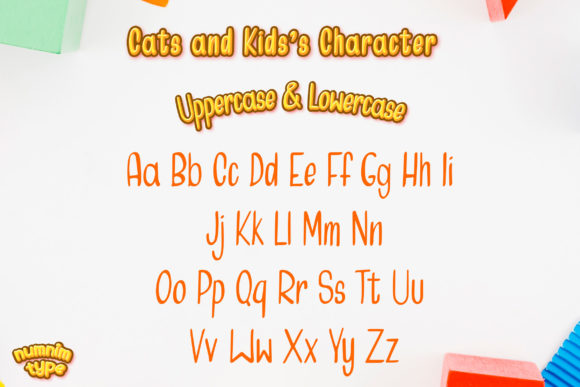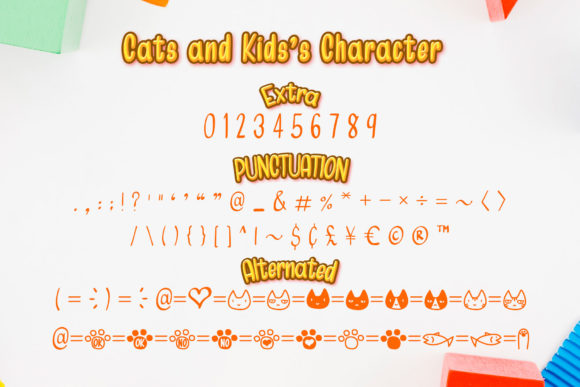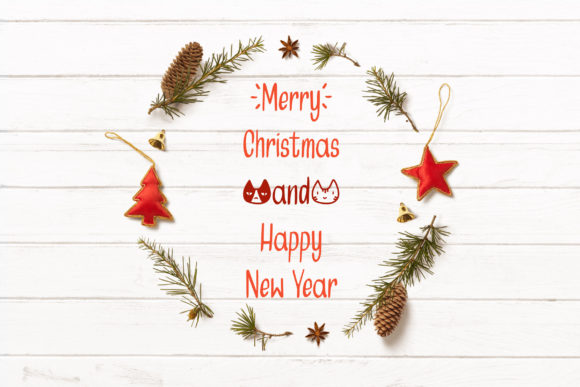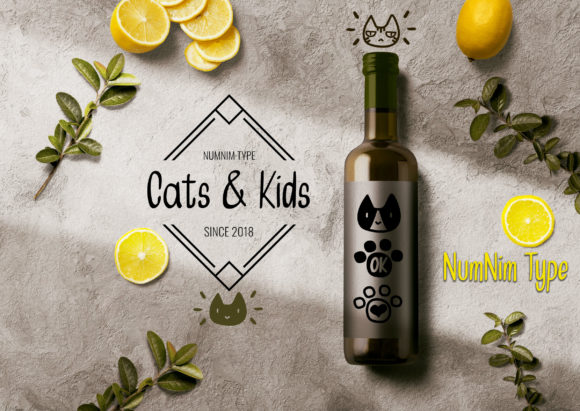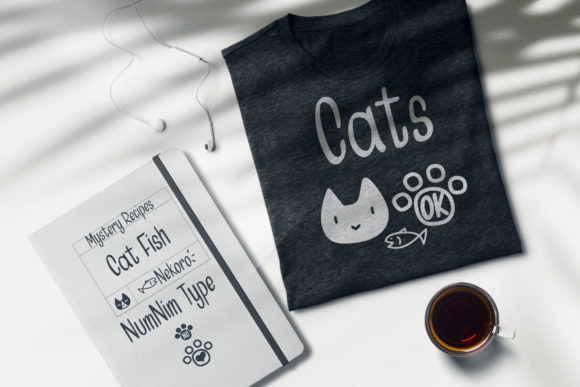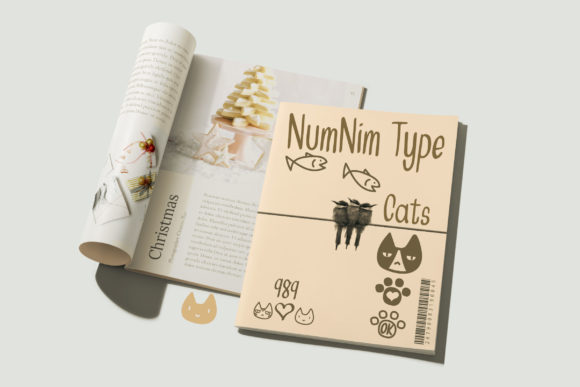
Whimsical Writings for the Young at Heart
Do you ever find yourself scribbling out ideas for your child’s birthday party invitations or holiday cards, only to be interrupted by a furry friend demanding attention? I know I do! Those moments of creative chaos often spark the most innovative ideas – and that’s exactly what happened when I discovered the Cats and Kids Font.
This delightful handwritten font is a perfect match for any project centered around children and whimsy. Whether you’re crafting a holiday letter or designing a children’s themed poster, the Cats and Kids Font adds a touch of playfulness and joy. Its delicate strokes and endearing style make it an instant favorite among designers looking to create something special for the little ones in their lives.
Cats and Kids Font Key Features
- Font Family: Cats and Kids Font is a custom-designed font family that includes multiple styles and weights.
- Character Count: The font family includes a wide range of characters, including uppercase and lowercase letters, numbers, and punctuation marks.
- Unique Characteristics: The font features whimsical illustrations of cats and kids, adding a playful touch to any design project.
Cats and Kids Font Review
As a designer, I was excited to dive into the “Cats and Kids Font” to see if it would live up to its cute and playful name. Overall, I’d say it’s a mixed bag, but let’s break it down.
- The font is indeed very cute and fun, making it perfect for kid-friendly projects or designs that need a playful touch.
- The font is highly customizable, with a wide range of weights and styles to choose from, making it easy to tailor the look to your needs.
- The font includes a variety of glyphs and characters, including some fun and creative additions like cat and kid-themed icons.
- The font can be a bit too playful for more serious or professional projects, which may not be the best fit for every designer.
- The font is not ideal for long blocks of text, as the whimsical design can become overwhelming and difficult to read.
- The font may not be the best choice for projects that require a high level of legibility, such as body text or navigation menus.
Overall, I’d say the “Cats and Kids Font” is a fun and playful addition to any designer’s toolkit, but it’s not a one-size-fits-all solution. Use it wisely and you’ll be purr-fectly happy with the results!
For best results, use the font in conjunction with playful and colorful graphics, such as illustrations or icons.
For optimal results, use the font in conjunction with bold lines, bright colors, and whimsical shapes.
For best results, use the font in conjunction with fun and engaging graphics, such as icons or illustrations.
The Cats and Kids Font is ideal for:
- Children’s book covers and illustrations.
- Party invitations and decorations.
- Toy packaging and branding.
Remember to have fun and be creative with the font!
Alternatives to “Cats and Kids Font” for Designers
Great Vibes Font is a beautiful, handwritten font perfect for adding a personal touch to your designs. It’s ideal for use in headings, titles, and quotes, and its cursive style makes it perfect for creating a whimsical or playful atmosphere. In comparison to Cats and Kids Font, Great Vibes Font is more elegant and sophisticated, making it a better choice for formal designs.
Pacifico Font is a modern, elegant font with a relaxed and casual feel. It’s perfect for use in headings, titles, and body text, and its clean lines make it easy to read. Compared to Cats and Kids Font, Pacifico Font is more minimalist and versatile, making it a great choice for a wide range of designs, from logos to brochures.